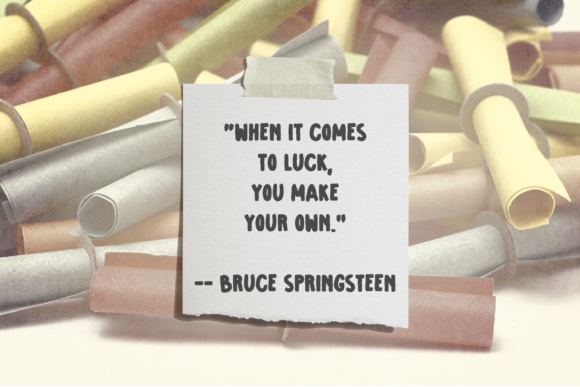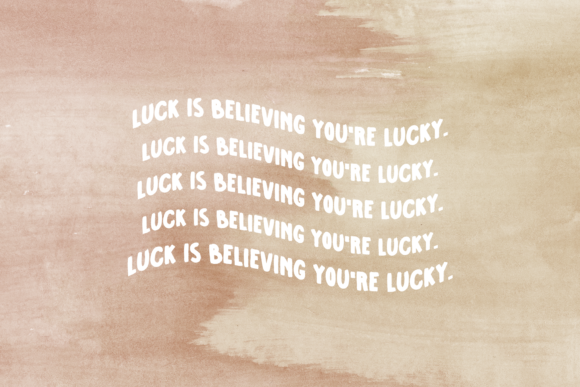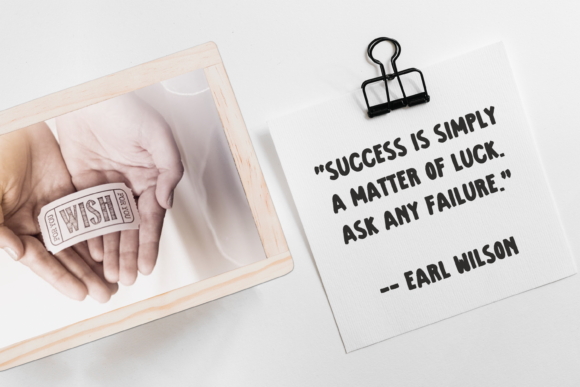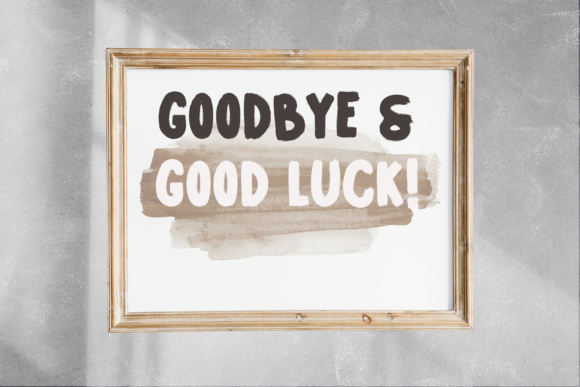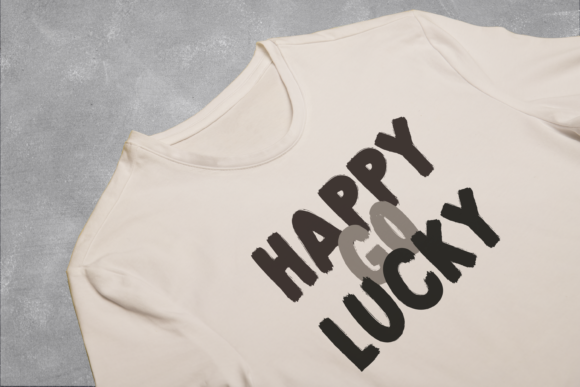
Introduction to Lucky Draw Font
Lucky Draw is a cute drybrush display font.
Get inspired by its incredibly sketchy feel and use it to turn any design project into a standout .
Key Features of Lucky Draw Font
Why Choose Lucky Draw Font?